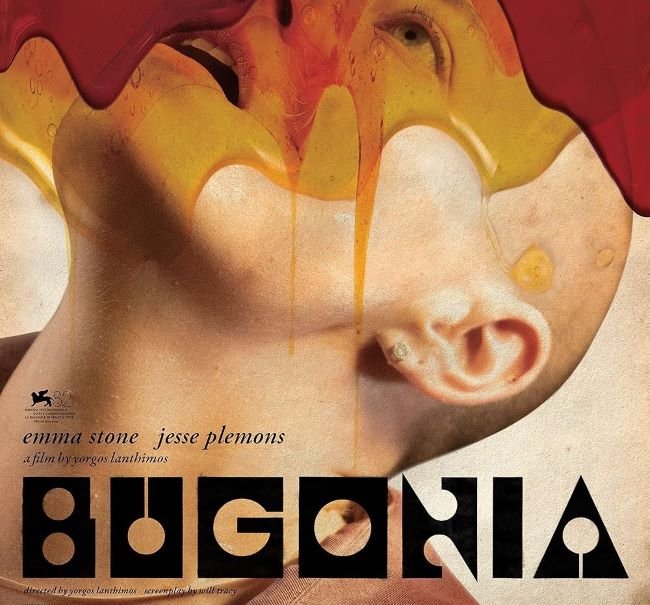
Bugonia font is Churchward Roundsquare — part of the extensive typographic legacy of New Zealand graphic designer Joseph Churchward, who spent decades creating one of the most distinctive and idiosyncratic font libraries in the Southern Hemisphere before his death in 2013. The typeface’s name alone signals its design logic: the letterforms negotiate between the round and the square, occupying a formally unusual middle ground that feels simultaneously ancient and modern, ceremonial and clinical — which maps with precision onto the aesthetic of Yorgos Lanthimos’s 2025 film, in which two men kidnap a businesswoman in the belief that she holds the power to save the world, a premise that is simultaneously absurdist and ritualistic. More information on the typeface is available via the Fonts In Use reference page.